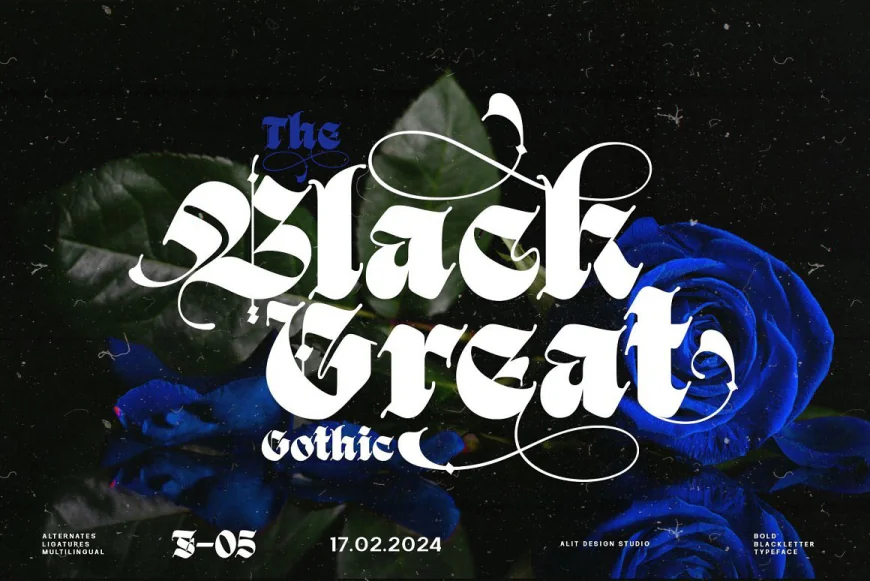
"Black Great" is a powerful and striking Blackletter-style font, characterized by bold strokes and a commanding presence. Its strong, distinctive design makes it ideal for projects that require a sense of authority and impact.